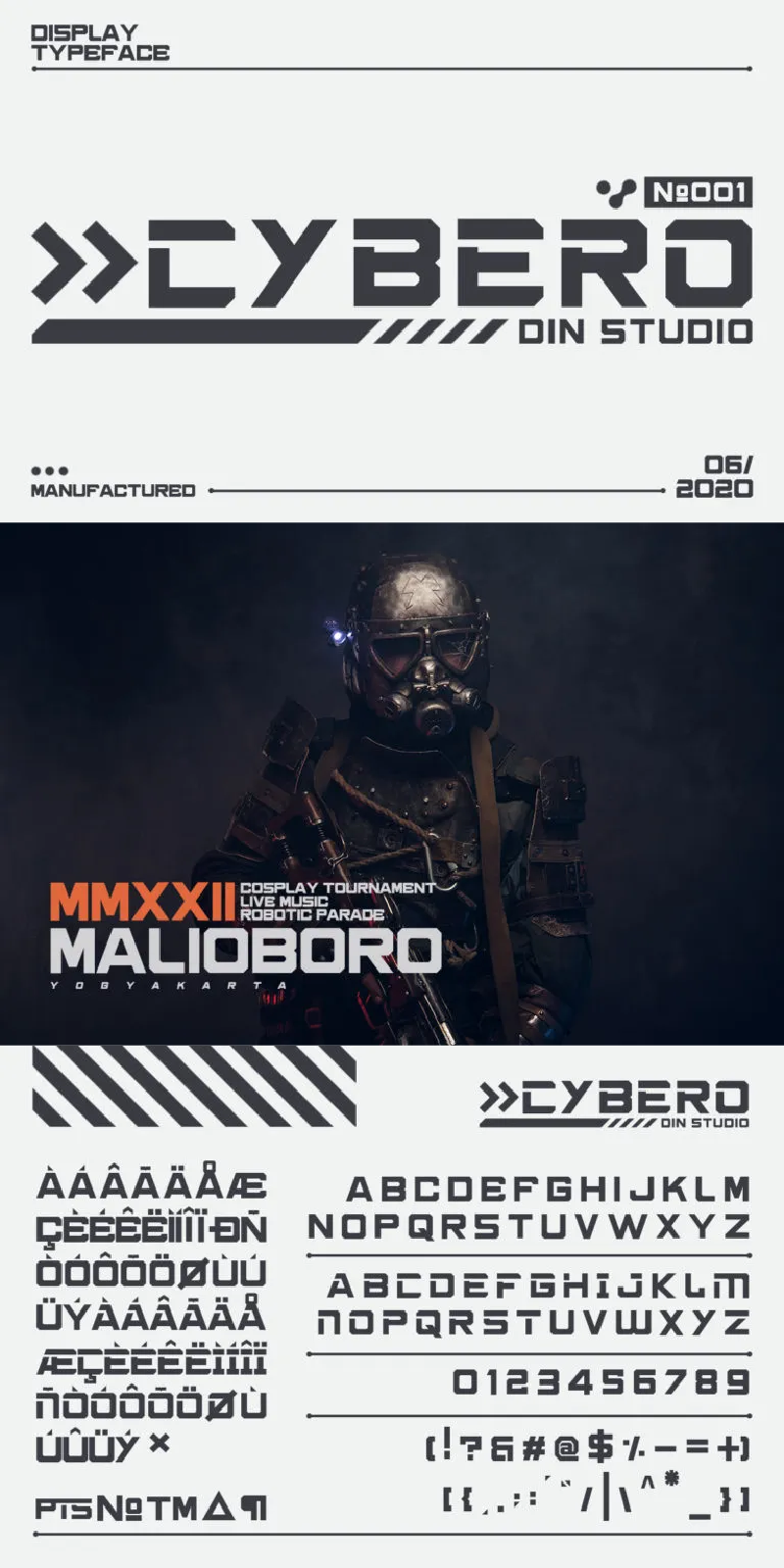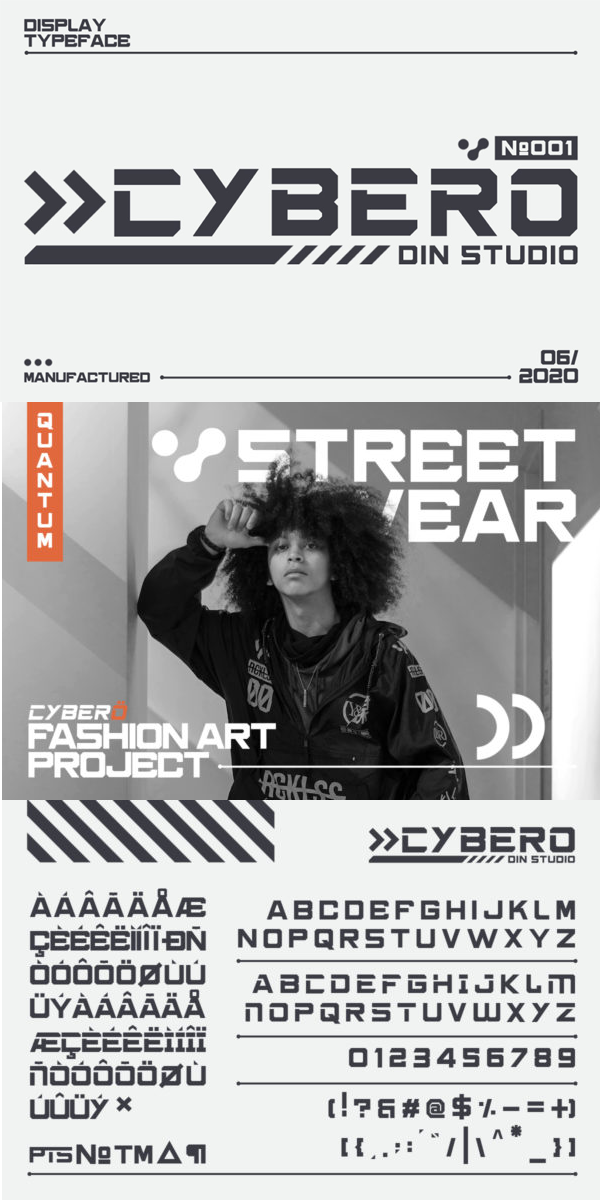
Cybero Font
About Cybero
Cybero is a bold and authentic display font showing abstract shapes in all of their eclectic beauty. This font will look truly outstanding in a wide range of contexts. The font is suitable for any projects, such as social media campaigns, brandings, logotypes, advertisements, etc. See the previews above to get some inspiration on how you can use them. Happy designing!
- Accents (Multilingual characters)
- Numerals and Punctuations (OpenType Standard)